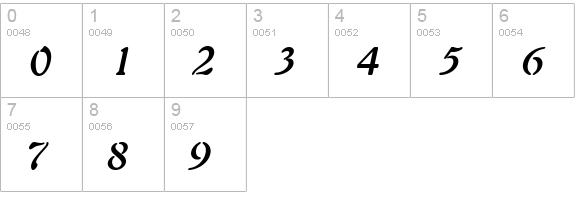
Freedom 9 BoldItalic Font Details
Experience the bold elegance of Freedom 9 BoldItalic font, a striking typeface that exudes confidence and sophistication. The unique combination of boldness and italic styling creates a visually captivating design that is perfect for making a statement in your projects. With its sleek lines and modern appeal, Freedom 9 BoldItalic font is sure to grab attention and leave a lasting impression. This font is not only visually stunning but also versatile, making it suitable for a wide range of design projects. Whether you are creating a poster, logo, website, or any other type of design, Freedom 9 BoldItalic font will add a touch of class and style to your work. Best of all, this font is available for free download at FontsMarket.com, so you can easily access this premium typeface without any cost. Don't miss out on the opportunity to enhance your designs with the bold beauty of Freedom 9 BoldItalic font – download it now and set your creativity free!